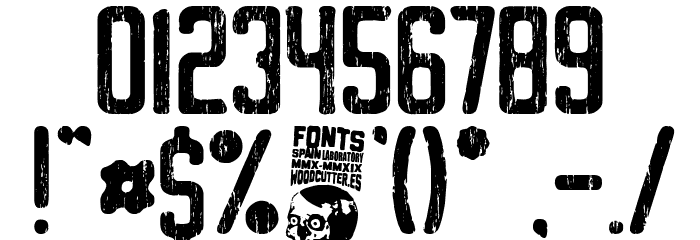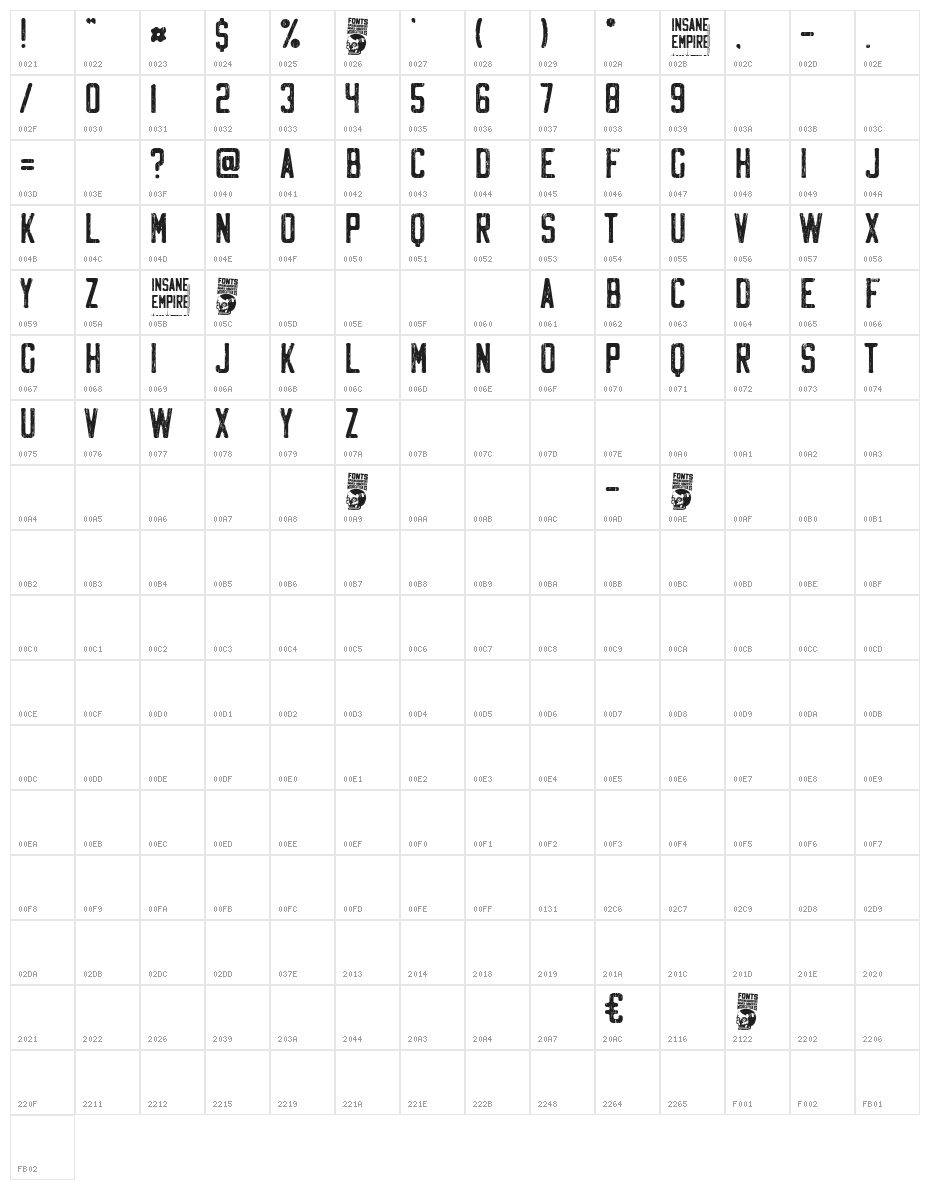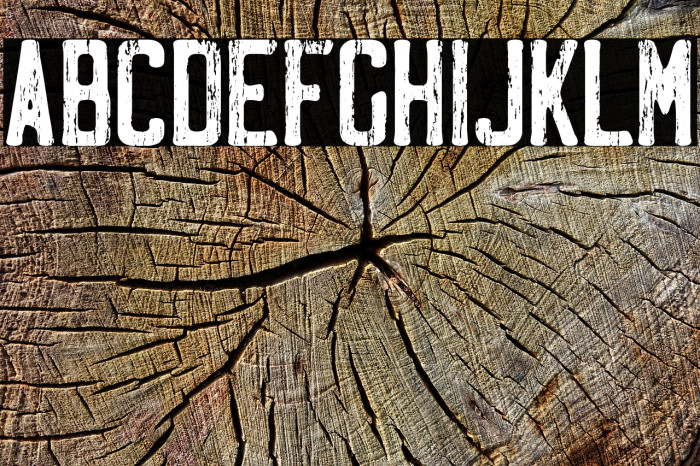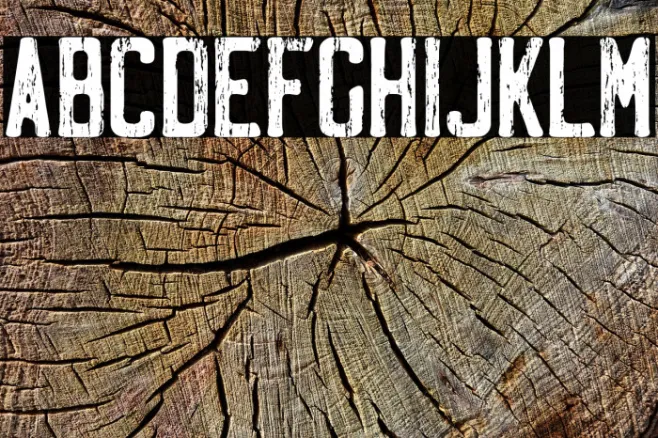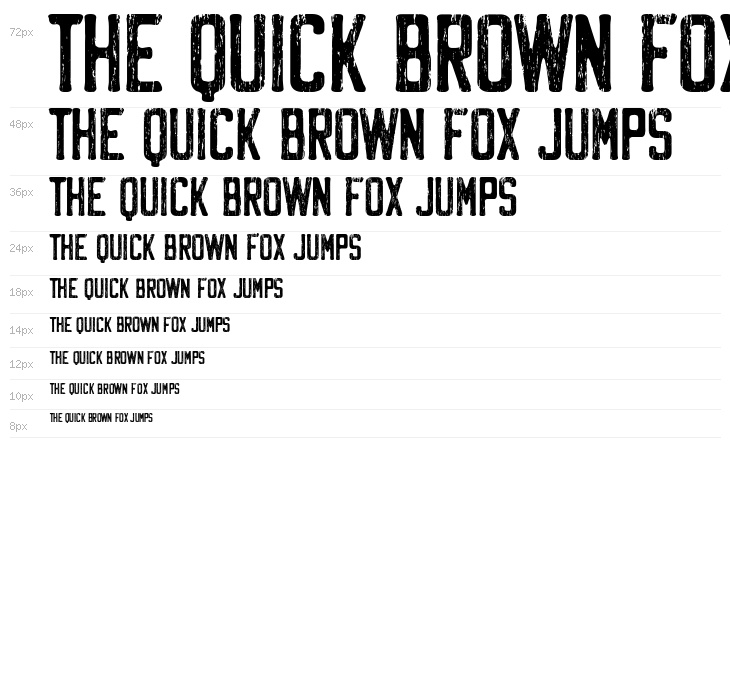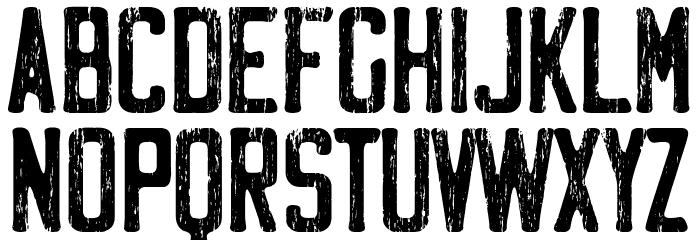
Insane Empire Font
Insane Empire Description
This font features a bold, distressed style with a textured appearance that gives it a rugged, vintage feel. The uppercase and lowercase letters are uniformly bold, with a consistent width that maintains readability despite the distressed effect. Numbers and special characters follow the same design, ensuring a cohesive look across all text elements. The font's rough edges and worn-out look make it ideal for projects that require a gritty or industrial aesthetic. Its boldness ensures it stands out, making it suitable for eye-catching designs.
| Proposed Projects | Ideal for posters, album covers, branding for edgy or industrial-themed products, and any design requiring a bold, vintage look. |